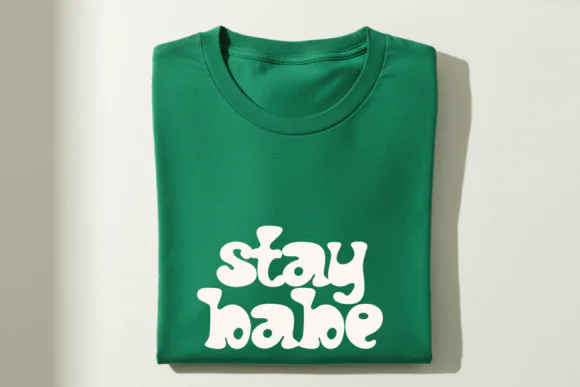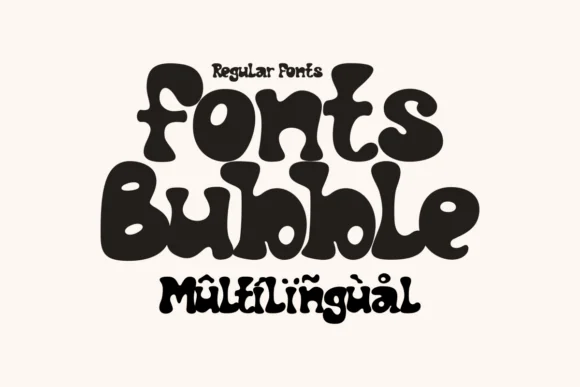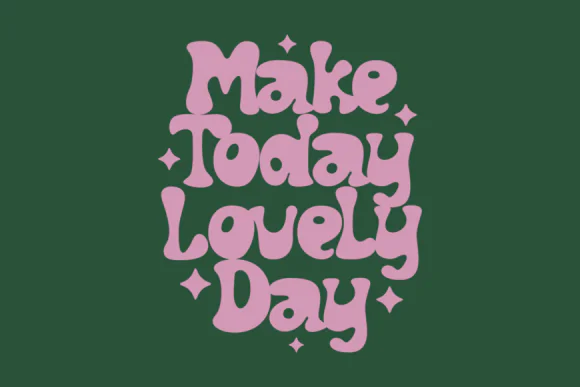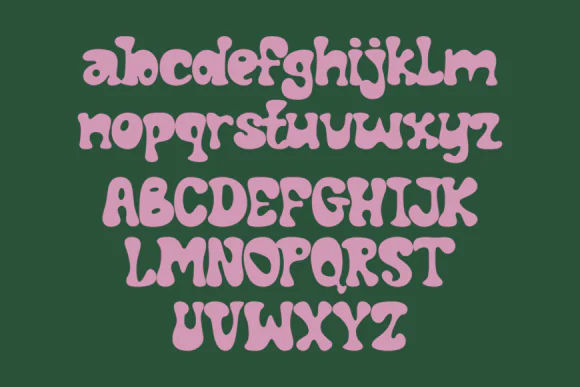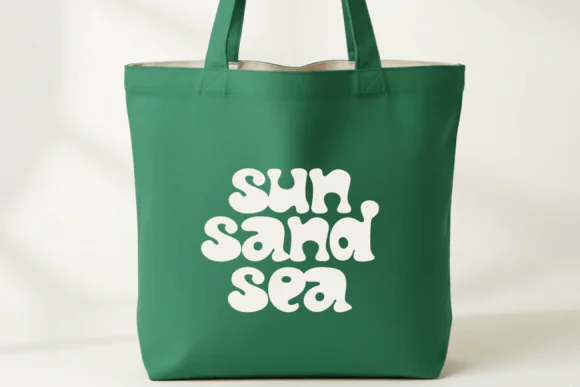
Create bold, nostalgic, and irresistibly cute designs with Matcha Bubble Font, a thick and playful bubble-style typeface inspired by 70s retro aesthetics, modern kawaii sweetness, and fun bubble-tea style visuals. With its ultra-fat rounded letters, curvy shapes, and energetic personality, this font is perfect for projects that need instant visual impact and a cheerful modern-retro look.
Matcha Bubble Font is ideal for bold branding, aesthetic product packaging, social media graphics, YouTube thumbnails, TikTok overlays, Instagram carousels, posters, flyers, merchandise, t-shirts, tote bags, mugs, stickers, and playful digital designs. Its soft rounded edges make the font feel friendly and approachable, while its heavy structure keeps it strong, readable, and professional for both print and digital use.
This font works beautifully with pastel gradients, bright colors, cute illustrations, retro layouts, kawaii design elements, and clean supporting fonts. Whether you are creating a trendy product label, a viral social media post, a fun apparel design, or a stylish poster, Matcha Bubble Font helps your text stand out with charm, energy, and personality.